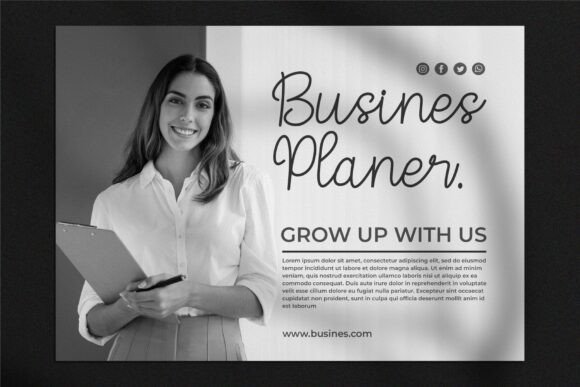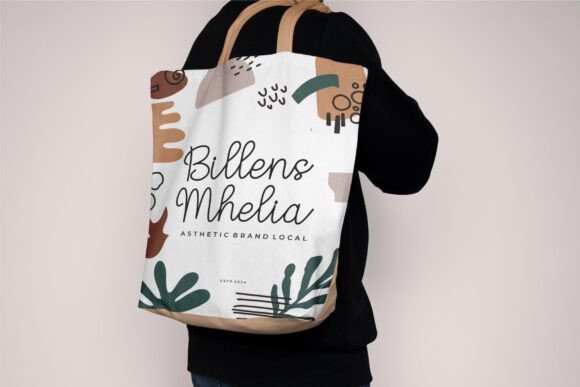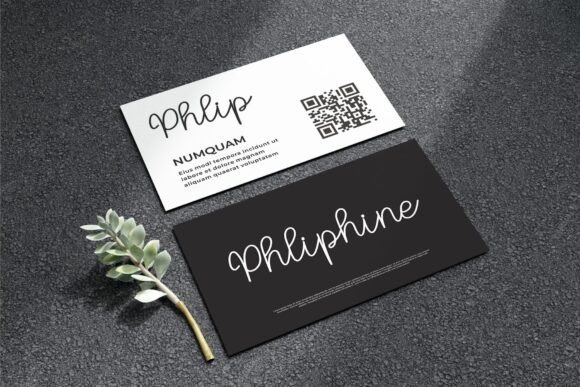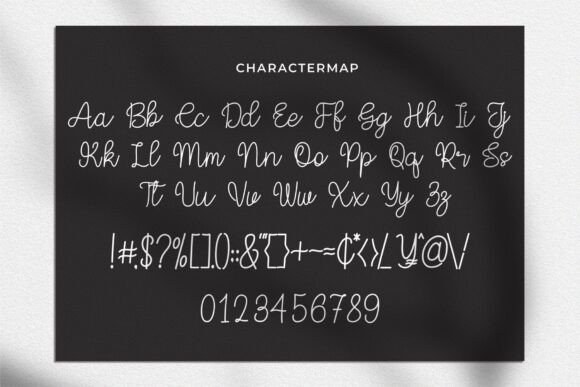
Introduction to Rasbery Swetnes Font
As designers, we’ve all been there – staring at a blank page, trying to bring a creative project to life. But sometimes, it’s the smallest details that can make all the difference. For me, it’s the perfect font that can elevate an entire design. Recently, I stumbled upon the Rasbery Swetnes Font, and I couldn’t wait to share it with fellow creatives.
This gorgeous handwritten font boasts a casual yet elegant style, making it perfect for a wide range of projects. From branding and labels to photography and invitations, the Rasbery Swetnes Font is a valuable design resource that can add a touch of sophistication to any creative endeavor. With its high-quality design and transparent background, it’s the perfect addition to any design toolkit.
Key Features of Rasbery Swetnes Font
- Unique, hand-drawn style with a transparent background, perfect for layered designs
- Comes in a single weight, ideal for projects where consistency is key
- Perfect for designers, artists, and writers seeking a distinctive and elegant font for their creative work
Honest Review: Rasbery Swetnes Font
I recently came across the Rasbery Swetnes Font, and I must say it’s a lovely addition to my design resource library. This font has a unique, elegant feel that’s perfect for creative projects where you want to convey a sense of sophistication.
- ✨ The font’s transparent background allows for easy integration into any design, making it a versatile option.
- ✨ High-quality design ensures that the font looks crisp and clear on various devices.
- ⚠️ The font’s limited character set may not be suitable for projects that require a wide range of special characters or languages.
- ⚠️ The font’s style may not be to everyone’s taste, so it’s essential to use it in a way that complements your overall design.
Overall, I’m impressed with the Rasbery Swetnes Font. It’s a great resource for designers looking to add a touch of elegance to their creative project. While it may have some limitations, the font’s unique style and high-quality design make it a valuable addition to any design library.
Rasbery Swetnes Font is ideal for creative projects, such as branding, advertising, and digital design. Its high-quality design makes it perfect for applications with transparent backgrounds, allowing for a seamless and professional look.